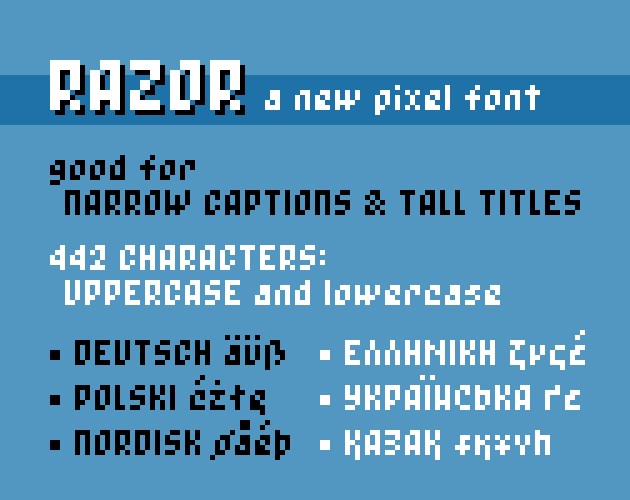
Razor font
Razor is a sharp little font, great for narrow captions and tall titles. It supports a wide range of languages: most European languages, Russian, Ukrainian, Kazakh, and Greek.